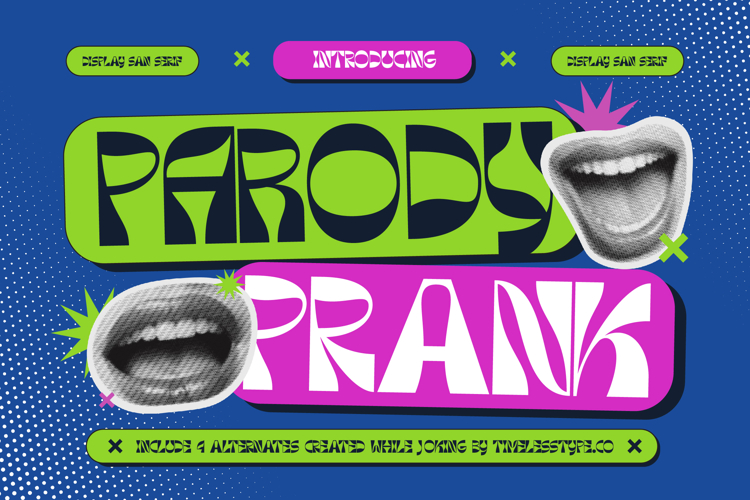
Parody Prank - Display Sans Serif
The Parody Prank Typeface is a display sans serif font with an experimental, bold, and humorous style. Designed with 4 stylistic alternates, this typeface delivers expressive, eccentric, and unconventional typography. Its thick, dynamic letterforms with a retro-futuristic vibe create a playful, fun, and satirical tone, making it perfect for creative projects that focus on entertainment and bold visual communication.
This font is highly effective in editorial design, especially for comedy posters, creative zine covers, and pop culture magazines. The stylistic alternates allow for interesting variations that bring extra personality to layouts.
In branding and packaging, Parody Prank is ideal for creative products, streetwear, unique merchandise, youth-oriented food & beverage brands, and entertainment content. Its quirky aesthetic ensures a memorable and character-rich visual identity.
For entertainment and promotional design, this typeface works perfectly on concert posters, stand-up comedy flyers, alternative music album covers, and event branding. Its experimental letterforms enhance visual storytelling with a satirical, cheerful, and energetic flair.
In the field of digital design, Parody Prank stands out on social media content, digital ads, creative websites, and motion graphics. Its bold design and eccentric forms make typography look fresh, communicative, and full of life.
In short, Parody Prank Typeface is an experimental display sans serif font designed to bring joy, humor, and eccentric style. Perfect for editorial, branding, packaging, advertising, entertainment, and digital campaigns, this font transforms typography into a fun, expressive, and daring visual element.